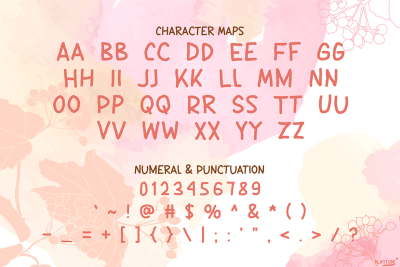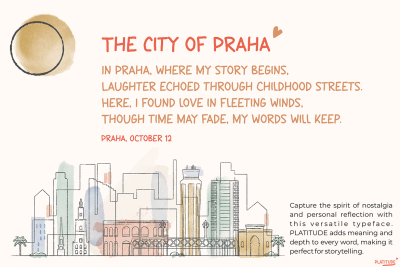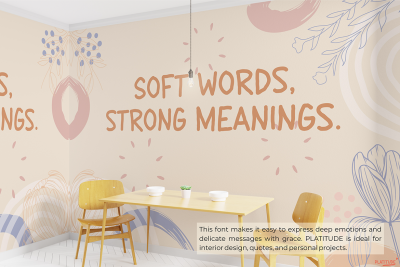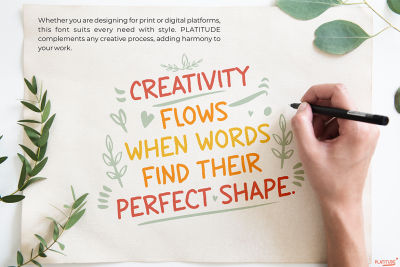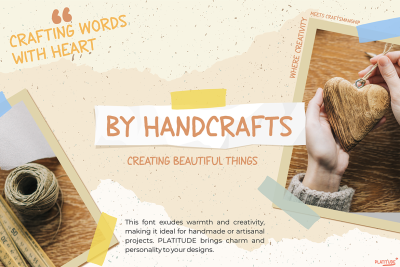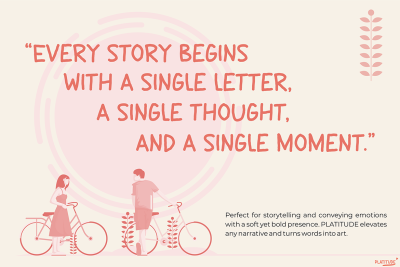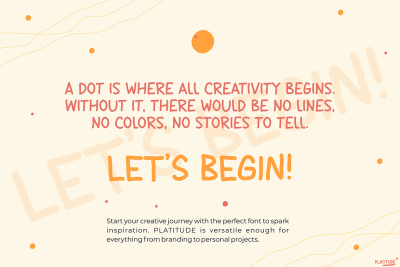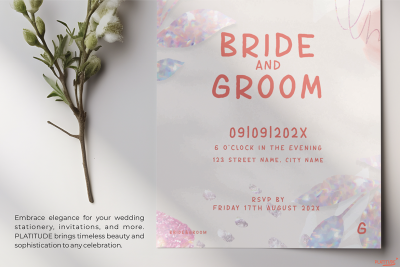
Instagram Font Platitude is a modern, stylish typeface that is perfect for enhancing visual content. With its clean lines and smooth letterforms, this font brings both sophistication and simplicity to any design. Whether for captions, banners, or graphics, Platitude adds a polished and professional touch. Moreover, its balanced proportions and subtle curves keep text readable while maintaining a strong visual appeal. This font strikes the perfect blend of creativity and professionalism, helping your Instagram content stand out effortlessly.
Furthermore, Platitudeโs versatility is one of its greatest strengths. It adapts seamlessly to various design needs, from bold headlines to subtle body text. Thanks to its modern, minimalistic style, it is ideal for conveying clear messages without sacrificing beauty. Additionally, this font adds a friendly yet professional tone to personal branding and business communication. As a result, it captures attention without overwhelming viewers, making it perfect for engaging audiences and creating lasting impressions.
Instagram Font Platitude Perfect For
Instagram Font Platitude is ideal for influencers, marketers, and content creators. For instance, it helps create visually appealing Instagram posts, stories, and highlights that feel cohesive and modern. From motivational quotes to product announcements, this font ensures your message stays clear and stylish.
Similarly, small businesses will find Platitude a valuable tool for building their brand identity. It works perfectly for fashion boutiques, beauty brands, lifestyle stores, and wellness businesses. Whether you are designing banners, advertisements, or product descriptions, Platitude resonates well with audiences. Its professional and clean style communicates trust while still keeping the tone fresh and engaging.
In addition, graphic designers and freelancers will appreciate Platitudeโs versatility. It works well in logos, digital ads, website headers, and presentations. Whether used in print or digital form, the font adapts beautifully to different mediums. For example, itโs an excellent choice for client projects, design portfolios, and personal branding materials.
On the other hand, Platitude also shines in personal projects. It adds elegance to wedding invitations, mood boards, and custom stationery. Likewise, bloggers and educators can use it for headlines, e-books, or presentations that require a stylish, modern feel. This font brings charm and sophistication to both creative and professional designs.
Ultimately, Instagram Font Platitude is perfect for anyone looking to combine functionality with beauty. It effortlessly transforms ordinary text into something memorable and visually appealing. Whether youโre launching a business, building a brand, or enhancing your creative work, Platitude helps your designs stand out in a crowded digital space.